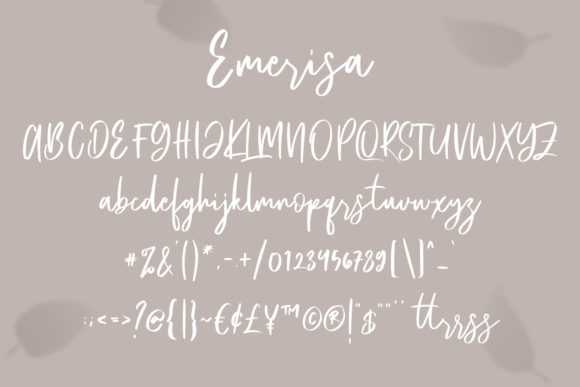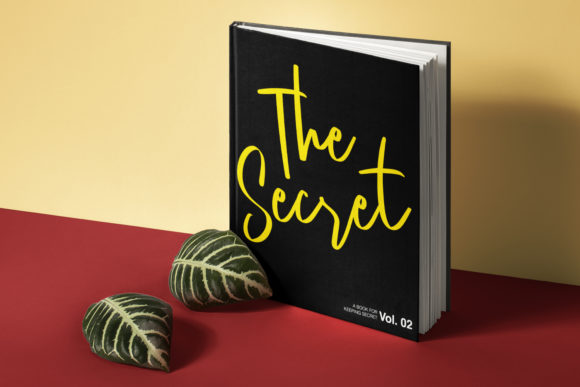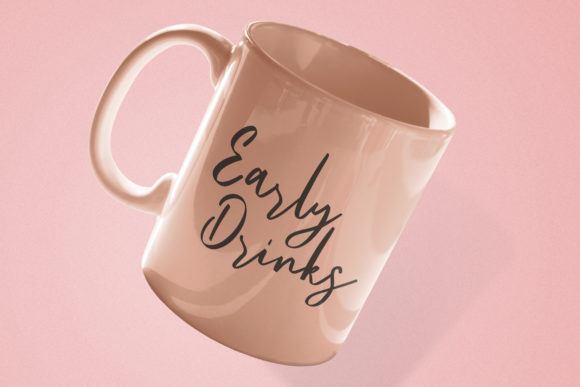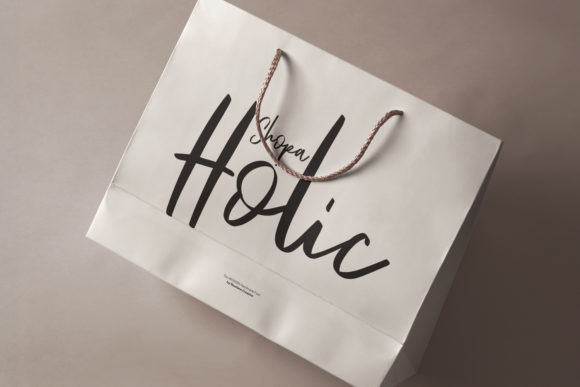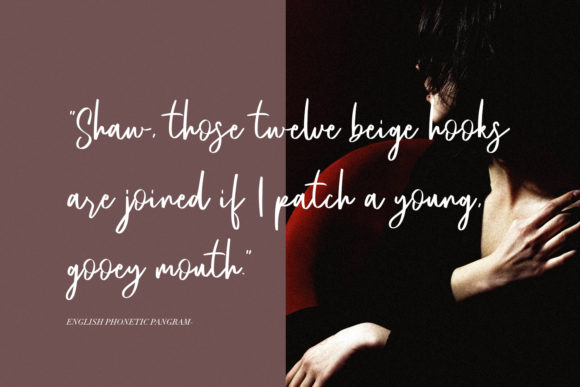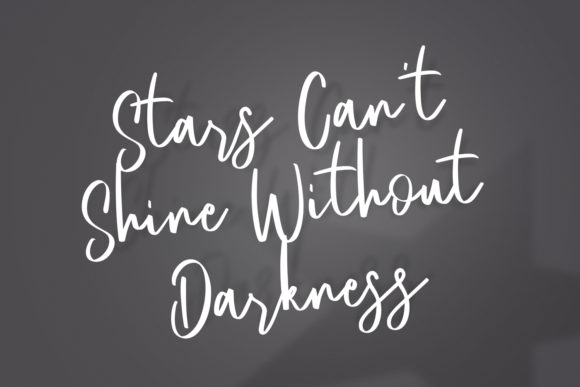
Introducing Emerisa Font: The Perfect Handwritten Script for Your Creative Projects
Are you looking for a font that can add a touch of authenticity and personality to your designs? Look no further than Emerisa Font, a beautiful handwritten script font that can give your projects an authentic handcrafted feel. In this article, we’ll explore the features and benefits of Emerisa Font, and show you how it can be perfectly suited for a variety of creative projects.
What is Emerisa Font?
Emerisa Font is a unique and elegant handwritten script font that is designed to mimic the look and feel of handwriting. With its flowing curves and natural imperfections, Emerisa Font is perfect for adding a personal touch to your designs. Whether you’re creating a logo, a poster, or a digital graphic, Emerisa Font can help you achieve a distinctive and eye-catching look.
Features of Emerisa Font
So, what makes Emerisa Font so special? Here are just a few of its key features:
- Handwritten script style: Emerisa Font is a true handwritten script font, with each letter and character carefully crafted to mimic the look and feel of handwriting.
- Natural imperfections: Unlike some fonts that can look too perfect or uniform, Emerisa Font has natural imperfections that give it a authentic and handcrafted feel.
- Unique character set: Emerisa Font includes a wide range of characters, including uppercase and lowercase letters, numbers, and punctuation marks.
- Easy to read: Despite its handwritten style, Emerisa Font is surprisingly easy to read, making it perfect for use in body text or captions.
Benefits of Using Emerisa Font
So, why should you choose Emerisa Font for your next project? Here are just a few benefits of using this amazing font:
- Adds a personal touch: Emerisa Font can add a personal touch to your designs, making them stand out from the crowd.
- Perfect for creative projects: Whether you’re a designer, crafter, or artist, Emerisa Font is perfect for a wide range of creative projects, from logos and posters to digital graphics and more.
- High-quality design: Emerisa Font is designed to high standards, ensuring that it looks great in any context.
Creative Projects that Suit Emerisa Font
So, what types of projects are suited to Emerisa Font? Here are just a few ideas to get you started:
- Logos and branding: Emerisa Font is perfect for creating unique and memorable logos and branding materials.
- Posters and flyers: Add a personal touch to your posters and flyers with Emerisa Font.
- Digital graphics: Emerisa Font is great for use in digital graphics, such as social media graphics, blog headers, and more.
- Crafting and DIY projects: Emerisa Font is perfect for crafters and DIY enthusiasts who want to add a personal touch to their projects.
In conclusion, Emerisa Font is a beautiful and versatile handwritten script font that can add a touch of authenticity and personality to your designs. With its natural imperfections and unique character set, Emerisa Font is perfect for a wide range of creative projects, from logos and posters to digital graphics and more. So why not give Emerisa Font a try today and see the difference it can make to your designs?